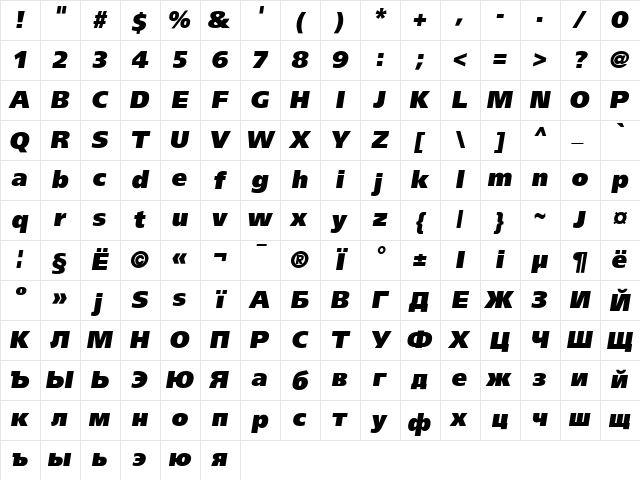
AG ForeignerULB-Oblique Medium Free Font
AG ForeignerULB-Oblique Medium
Design Context for AG ForeignerULB-Oblique
AG ForeignerULB-Oblique is a composed and adaptable typeface that performs quietly and consistently across a wide range of design contexts. The slanted form adds forward momentum and visual energy.
Pro Tip: Use AG ForeignerULB-Oblique for emphasis, pull quotes, and subheadings where its slanted energy can add rhythm to the layout.